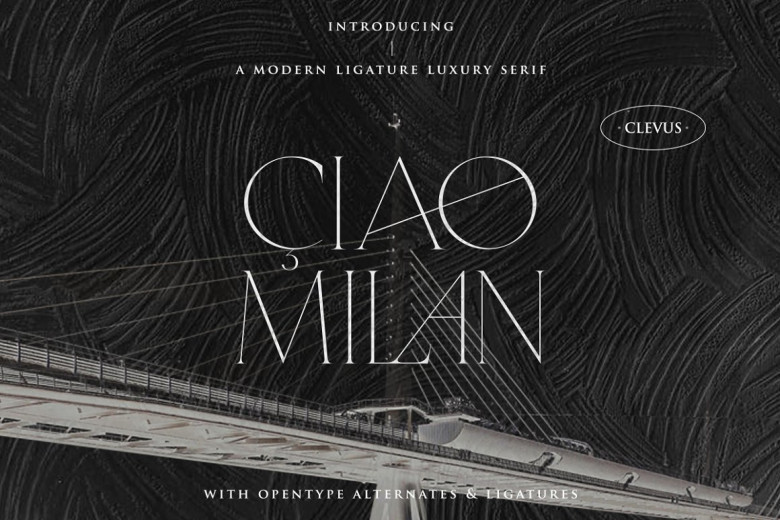
CiaoMilan Font
CiaoMilan is an elegnat and modern serif font that was published by ClevUs along with a stylish alternate & ligature look. This basic typeface is perfect for contemporary projects like an elegant & luxury logo, book or movie title design, fashion brand, magazine, clothes, lettering, quotes, and so much more.
CiaoMilan Serif Font